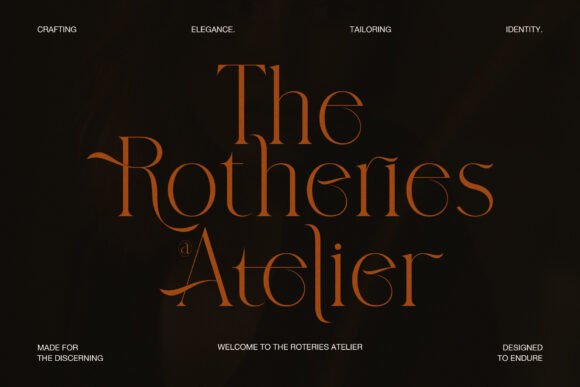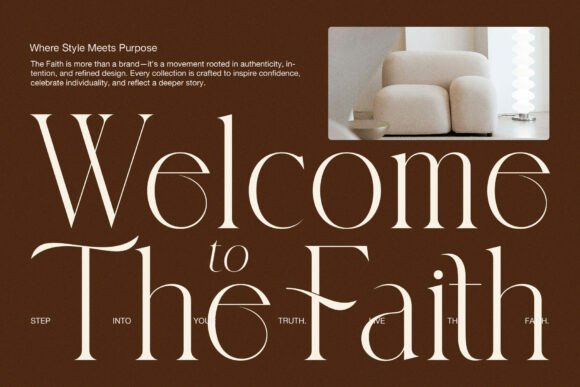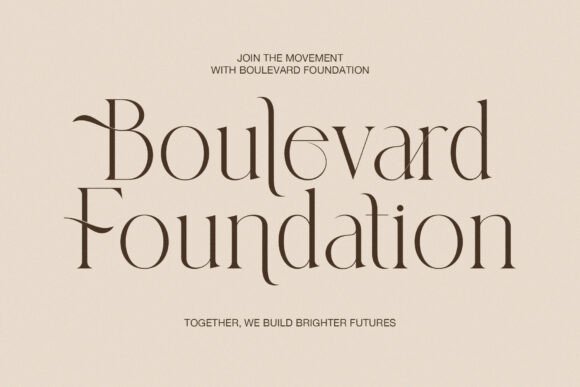
Leaffes Font
About the Leaffes Font
Unleash your creativity with Leaffes Font, a versatile font perfect for a wide range of applications. Introducing **Leaffes Elegant Serif Font** – a captivating typeface that combines modern sophistication with timeless elegance. With its meticulously designed serifs and distinctive, flowing letterforms, Leaffes brings a touch of luxury to any project. Its unique and graceful appearance makes it a standout choice for designs that demand both style and professionalism.
Leaffes Elegant Serif is perfect for a wide range of applications, including logos, branding, websites, product packaging, advertisements, and editorial layouts. Whether you’re creating a high-end boutique identity, a trendy magazine, or a sleek product label, Leaffes ensures your designs make an unforgettable impression. Its timeless yet contemporary aesthetic effortlessly captures attention while maintaining an air of refinement.
The font’s elegant structure offers exceptional readability, making it equally suitable for both print and digital media. The refined curves and balanced serifs bring a harmonious touch to every word, making Leaffes a versatile option for industries such as fashion, food, beauty, and lifestyle. Whether you are designing for luxury brands or artisanal products, Leaffes Elegant Serif adds a sense of exclusivity and sophistication to your work.
Leaffes is not just a font; it’s a design statement. Elevate your creative projects with this beautiful, modern serif font that combines elegance with modern flair. Perfect for those who want to create a lasting visual identity, Leaffes Elegant Serif is the ultimate choice for making your designs stand out with style and grace.
Leaffes Font Usage Examples
Leaffes Font Example